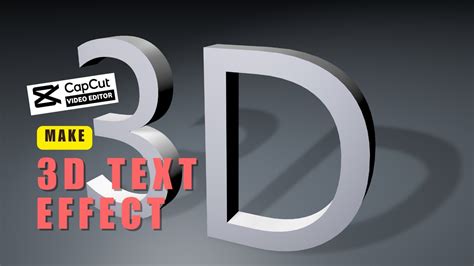
Unlock the Secrets of 3D Fonts in Photoshop: Transform Your Text into Stunning 3D Masterpieces!
What is 3D Fonts?
3D fonts are fonts that appear to have a 3D effect. They can be used to create text-based designs, logos, and other types of artwork. 3D fonts are created by manipulating the outlines of the font and adding additional elements such as shading or perspective. This can be done manually or with the help of software such as Photoshop, Illustrator, or InDesign. The result is a unique and eye-catching design that stands out from the crowd.
How to Use 3D Fonts in Photoshop
Using 3D fonts in Photoshop is as easy as using any other font. To get started, first select the text tool from the Tools palette. Then choose the font you want to use from the drop-down menu. Once the text is created, you can begin to manipulate it. Depending on the font you have chosen, you may be able to change the size, color, and other characteristics. You can also apply shading and perspective to the text to create a more realistic effect.
Transform Your Text into Stunning 3D Masterpieces
Once you have the basic 3D font set up, you can begin to transform it into something truly unique. By adding shadows, highlights, and other effects, you can create a 3D masterpiece. You can also use the 3D text to create logos, headers, and other designs. The possibilities are endless and the results are sure to impress.
Example of Unlock the Secrets of 3D Fonts in Photoshop
For example, you can use the 3D text to create a logo for your business. You can start by creating a basic text-based logo with the 3D font. Then add in highlights and shadows to give the text more depth and dimension. You can also add a gradient or color overlay to give the logo a more professional look. This is just one example of how you can use 3D fonts to create stunning designs.
Point of View of Unlock the Secrets of 3D Fonts in Photoshop
Using 3D fonts in Photoshop is a great way to add a unique and eye-catching element to your designs. They can be used to create logos, headers, and other designs that stand out from the crowd. With a little bit of practice, you can turn your text into stunning 3D masterpieces that will impress anyone who sees them.
Tips for Unlock the Secrets of 3D Fonts in Photoshop
When using 3D fonts in Photoshop, it is important to remember to use the proper techniques. For example, use the right perspective when adding shading and highlights to the text. This will ensure that the 3D effect looks realistic and not too exaggerated. It is also important to pay attention to the size of the font and make sure it is not too large or too small for the design. Finally, make sure to save your work often as 3D fonts can be difficult to edit.
Conclusion
Using 3D fonts in Photoshop can be a great way to add an extra element to your designs. With a little bit of practice and experimentation, you can create stunning 3D masterpieces that will impress anyone who sees them. So if you are looking to give your designs an extra flair, try using 3D fonts in Photoshop and unlock the secrets of 3D fonts today.